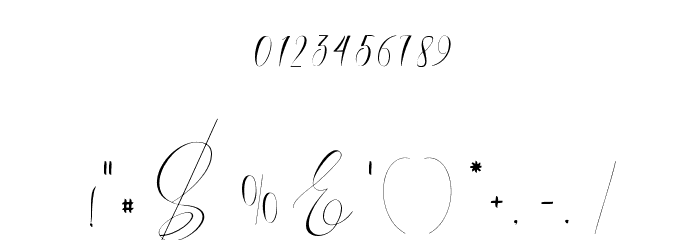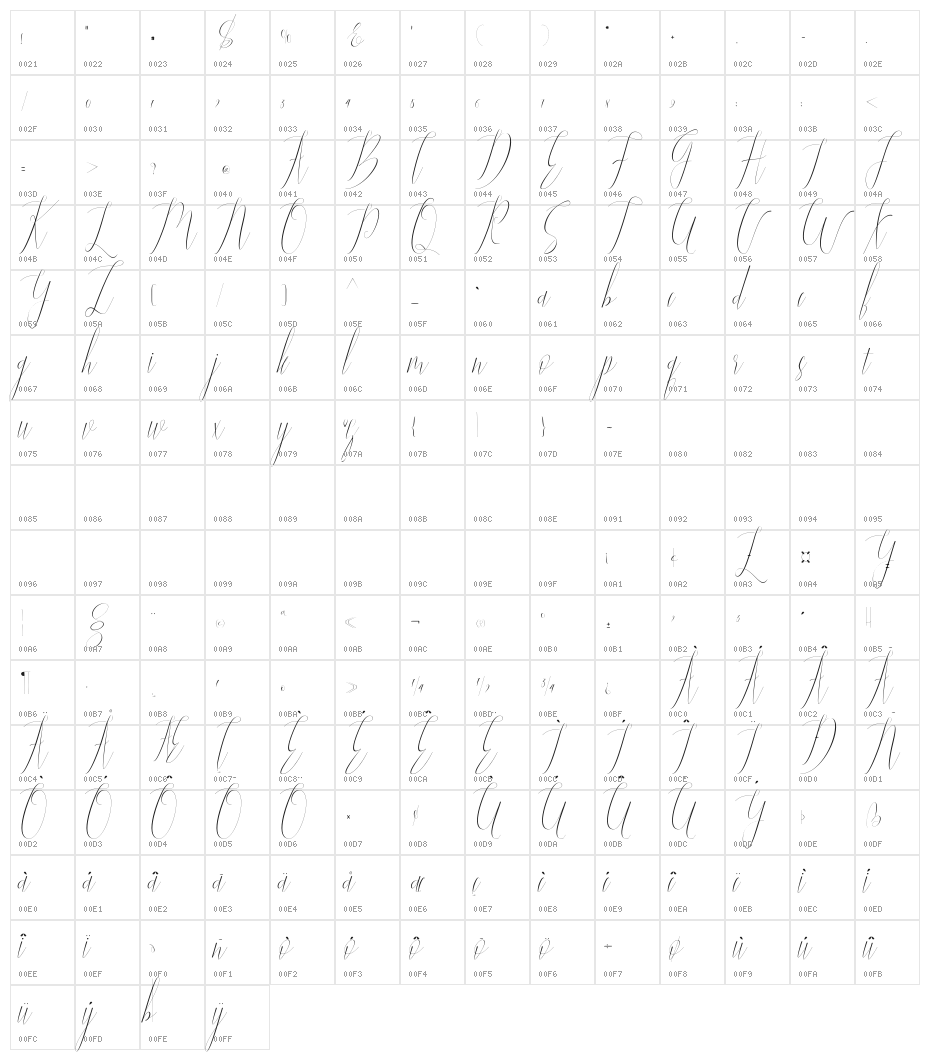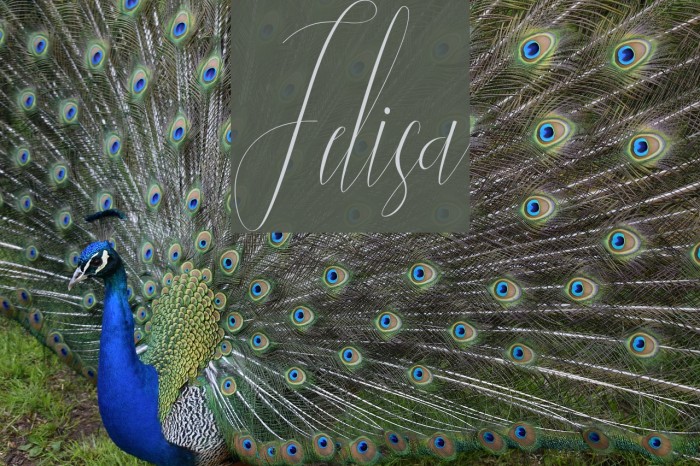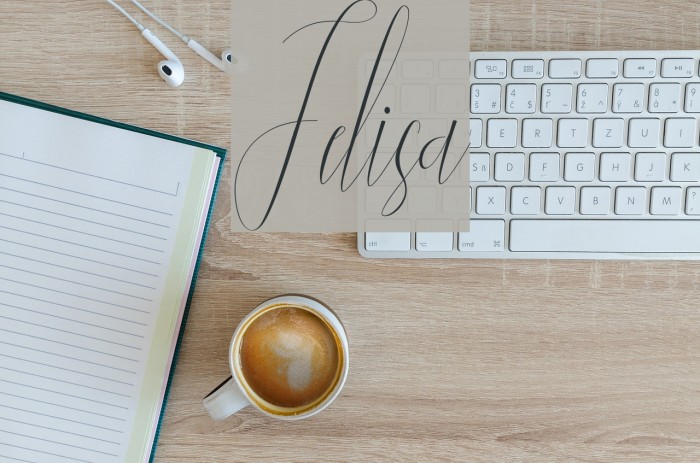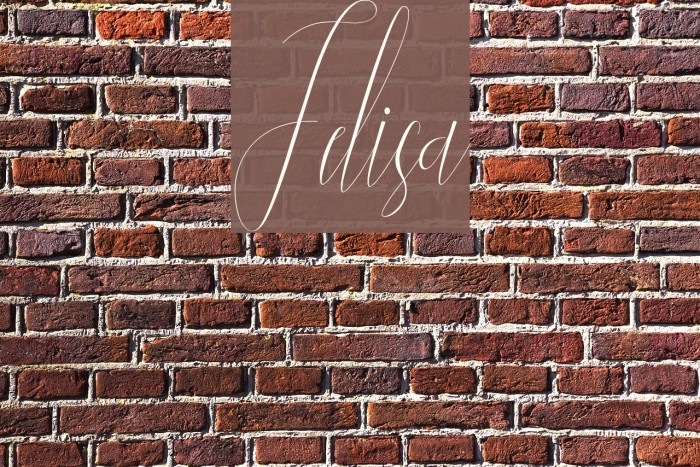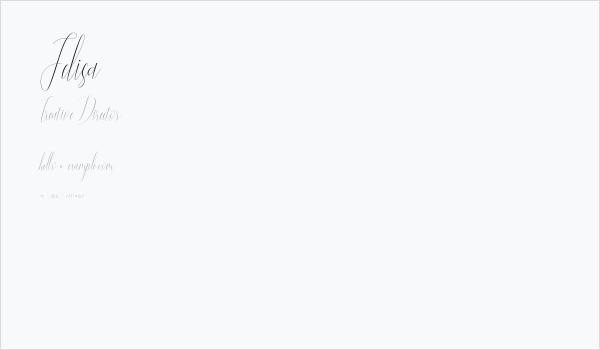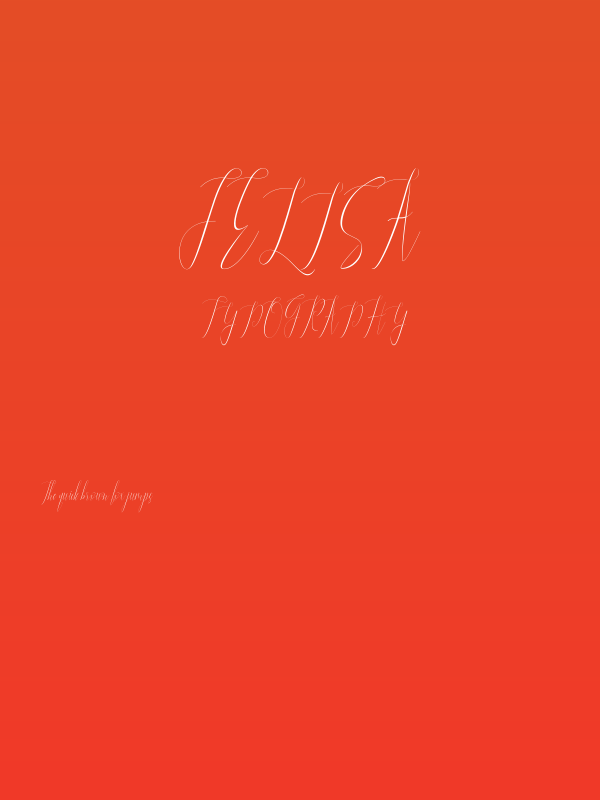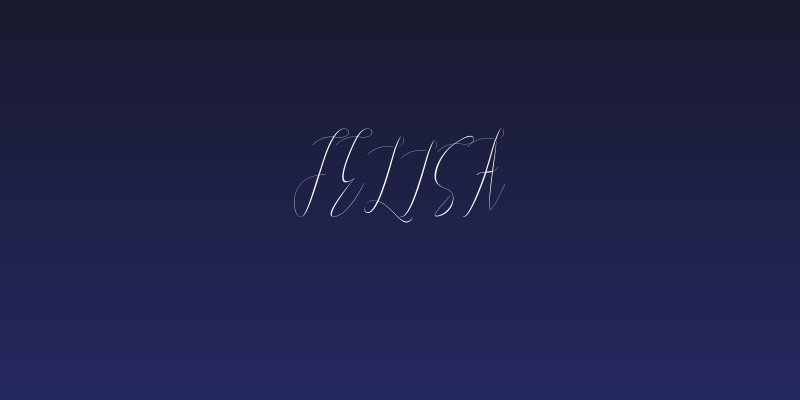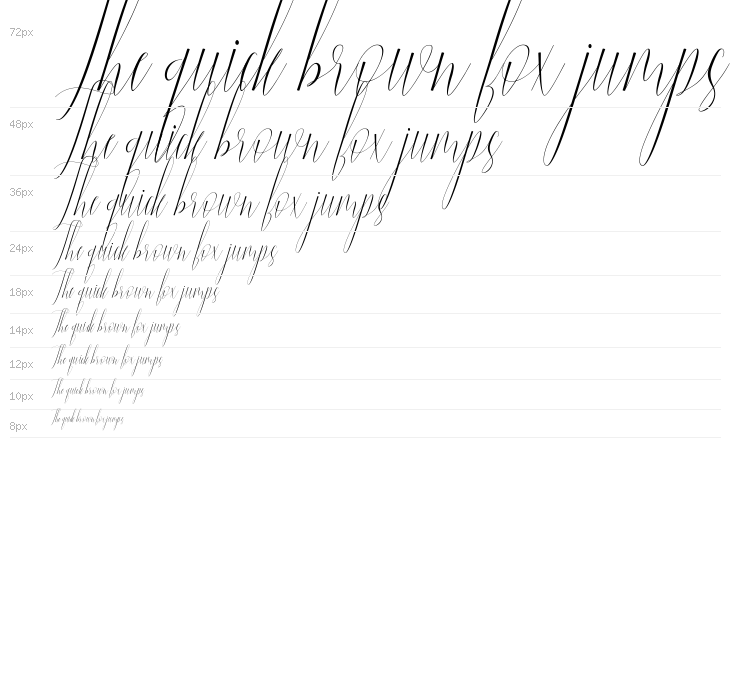
Jelisa Font
Jelisa Description
This elegant script font features flowing, interconnected letters with a refined and sophisticated appearance. The uppercase letters are tall and slender, with graceful loops and swirls that add a touch of whimsy. The lowercase letters maintain a consistent flow, enhancing readability while preserving the font's decorative nature. Numbers and special characters are designed with the same attention to detail, ensuring a cohesive look across all text elements. The font's delicate strokes and high contrast between thick and thin lines give it a luxurious feel, making it ideal for upscale branding and design projects.
| Proposed Projects | Wedding invitations, luxury branding, elegant logos, and high-end product packaging. |